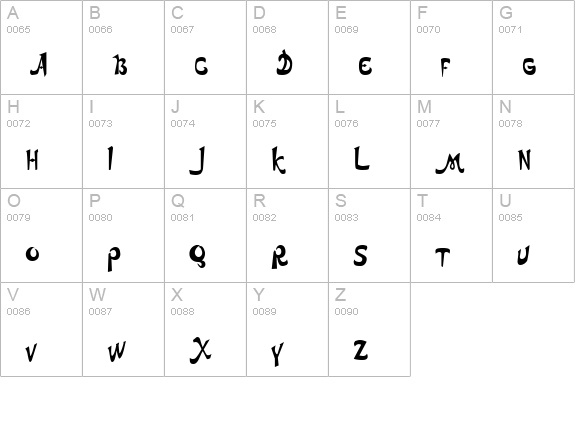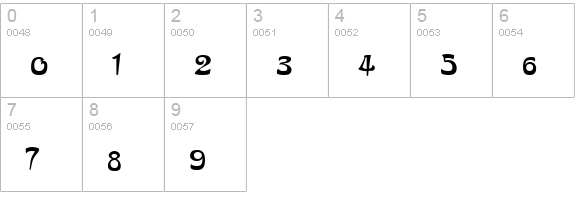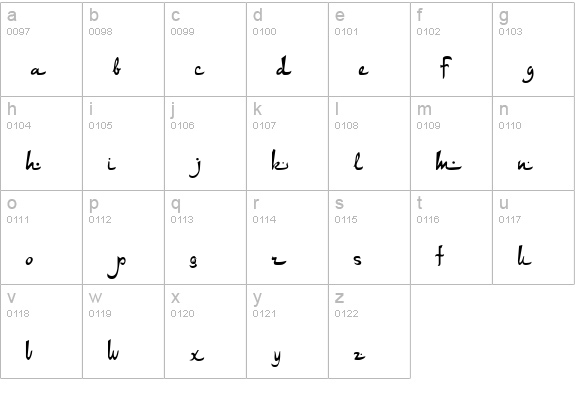
DS Arabic Font Details
Introducing the stunning DS Arabic font, a captivating typeface designed to bring a touch of elegance and sophistication to your projects. With its intricate Arabic script and modern aesthetic, this font is perfect for adding a unique flair to your designs. Whether you're working on branding, signage, invitations, or any other creative project, DS Arabic font will make a lasting impression. And the best part? DS Arabic font is completely free to download at FontsMarket.com. Take advantage of this amazing opportunity to enhance your designs with this beautiful and versatile font. Download it today and let your creativity soar with DS Arabic font!